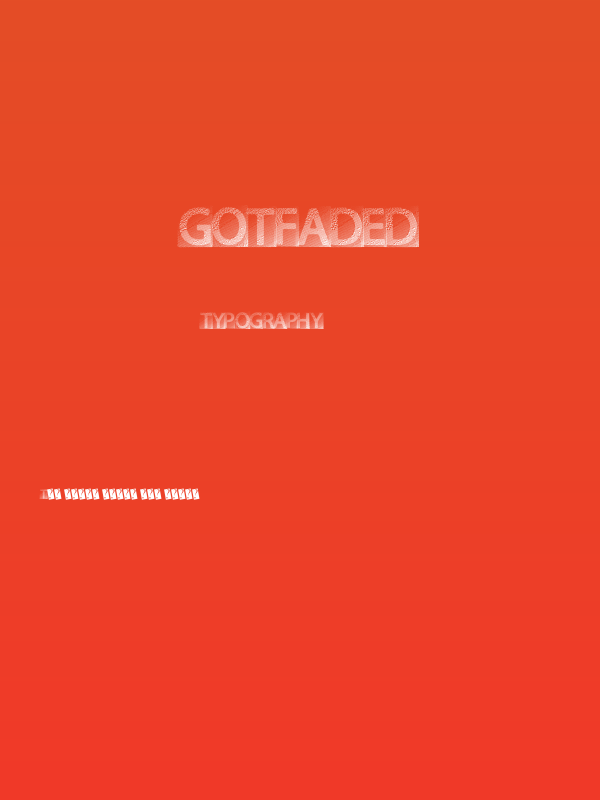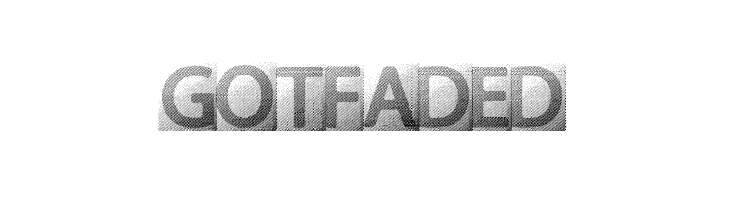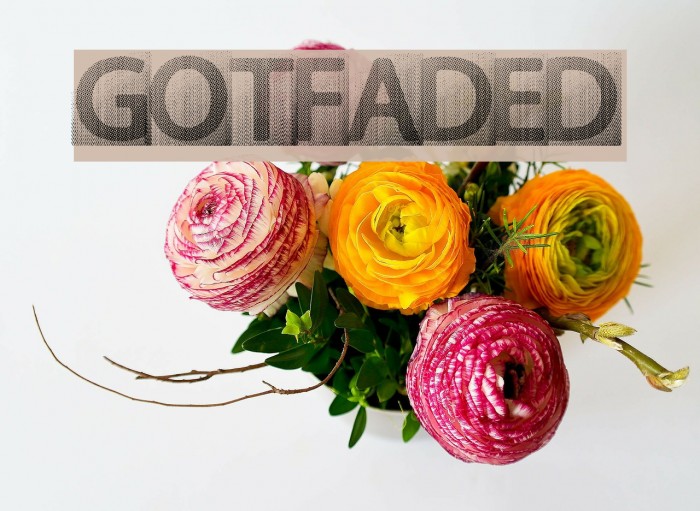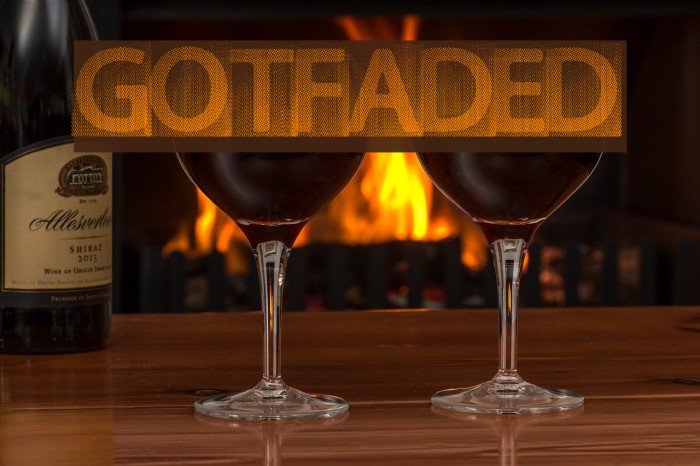
GOTFADED Font
✎ Futuristic
GOTFADED Description
This font features a bold, modern design with a distinct halftone texture that gives it a unique, faded appearance. The uppercase letters are evenly spaced and maintain a consistent width, contributing to a clean and structured look. The halftone effect adds a layer of depth and visual interest, making it stand out in various design contexts. The font's style is both contemporary and versatile, suitable for a range of creative applications. Its strong presence and textured finish make it ideal for projects that require a bold statement.
| Proposed Projects | Ideal for posters, branding, headlines, and any design requiring a bold, textured look. |